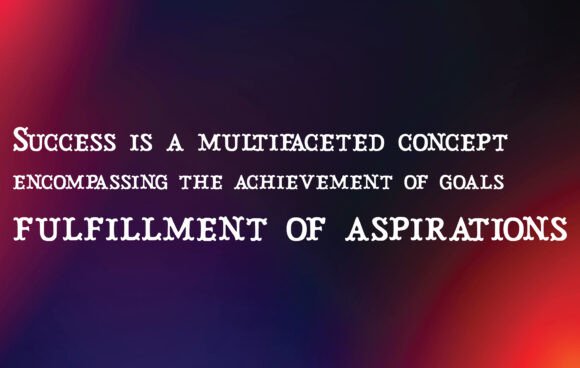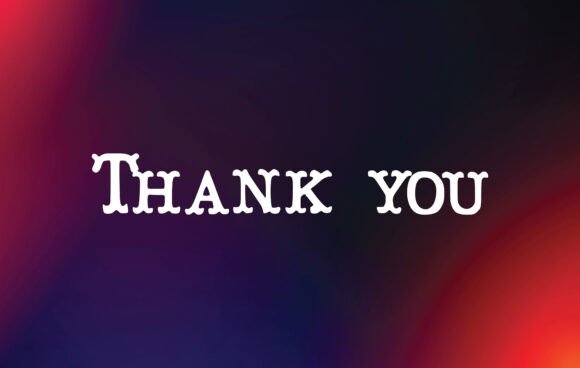
The Birth of a Design Favorite
You’ve spent hours perfecting your design, pouring your heart and soul into every detail. And then, it happens – that moment when all the elements come together in perfect harmony, and your creation truly shines. Whether you’re a seasoned designer or just starting out, there’s no denying the rush of excitement that comes with bringing your vision to life.
That’s where the Asia Font comes in – a versatile and eye-catching typeface designed to help you make a lasting impression. With its clear and easy-to-read design, it’s the perfect choice for titles, body text, and everything in between. From magazine covers to social media posts, wedding invitations to branding, this font is the ultimate go-to favorite for designers looking to add style and personality to their work.
Asia Font Key Features
- Unique Character Set: Asia Font includes a comprehensive character set that supports multiple languages, including Chinese, Japanese, Korean, and Southeast Asian languages, making it an ideal choice for multinational and multilingual projects.
- Customizable: Asia Font offers a range of customization options, including font weight, style, and ligature settings, allowing designers and developers to tailor the font to their specific needs.
- Scalability: Asia Font is designed to be highly scalable, ensuring that it remains legible and clear at various font sizes and resolutions, making it suitable for a wide range of applications, from small text to large headlines.
Review of Asia Font
Overall, I think Asia Font is a great addition to any designer’s toolkit. Here are some things that really stand out: ✨
- Exotic and elegant feel: Asia Font brings a unique touch to any design project, perfect for cultural or travel-related themes.
- High-quality typography: The font is well-designed, with crisp lines and a clean aesthetic that makes it perfect for body text and headings.
- Extensive character set: Asia Font includes a wide range of characters, making it suitable for use in various languages and scripts.
- Limited flexibility: Asia Font is a relatively conservative design, which may limit its appeal for more experimental or avant-garde projects.
- Not ideal for small text sizes: While Asia Font looks great at larger sizes, it can become blurry and difficult to read at smaller sizes.
Overall, I think Asia Font is a solid choice for designers who want to add a touch of exotic flair to their projects. While it may not be the best fit for every project, it’s a great option to have in your arsenal.
Asia Font is ideal for creating Asian-inspired designs, such as:
- Traditional Chinese or Japanese calligraphy
- Asian-themed posters or flyers
- Language learning materials
For optimal results, use Asia Font in combination with other Asian-inspired design elements, such as kanji or hiragana characters.